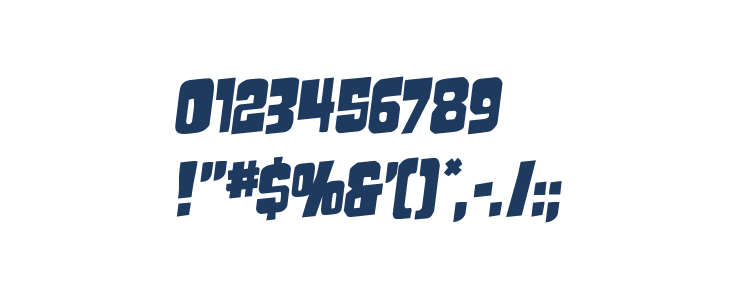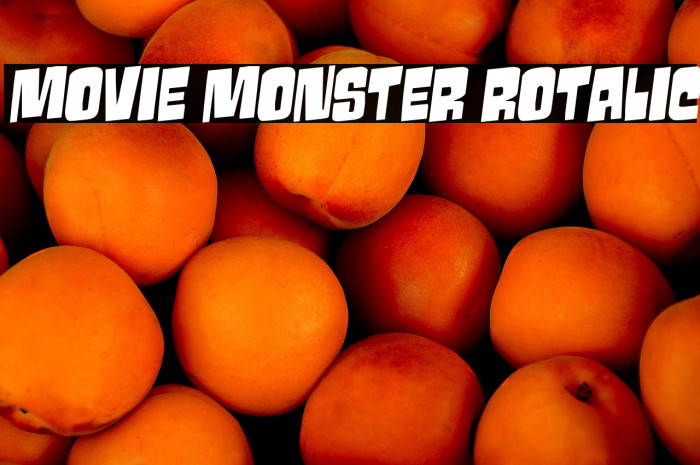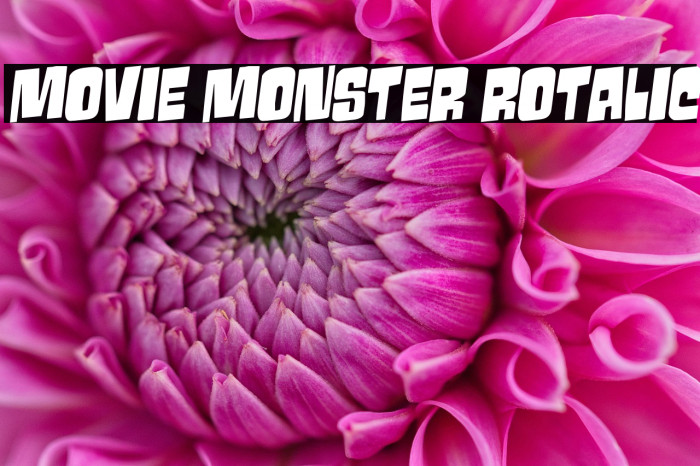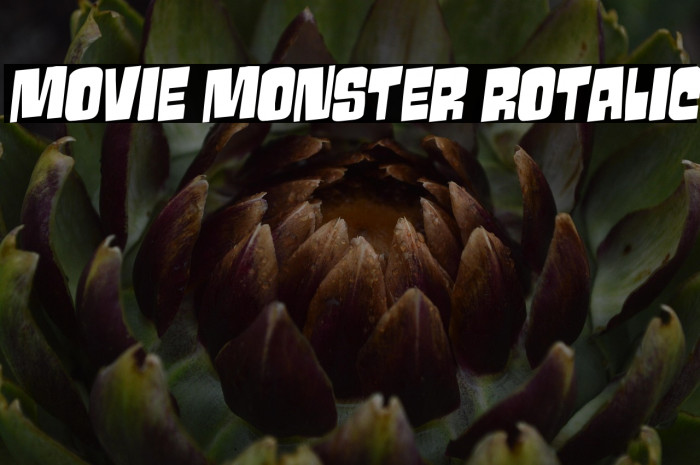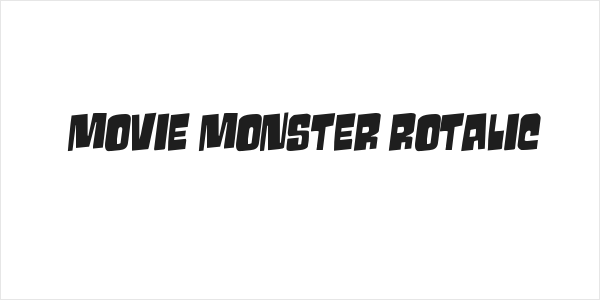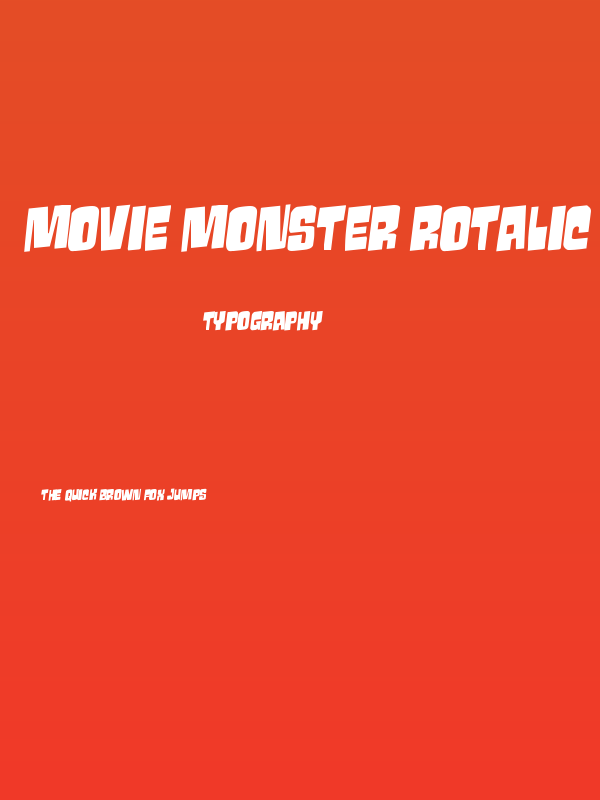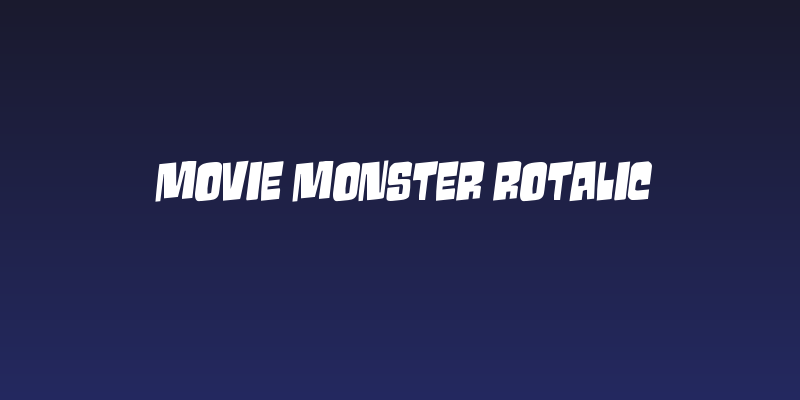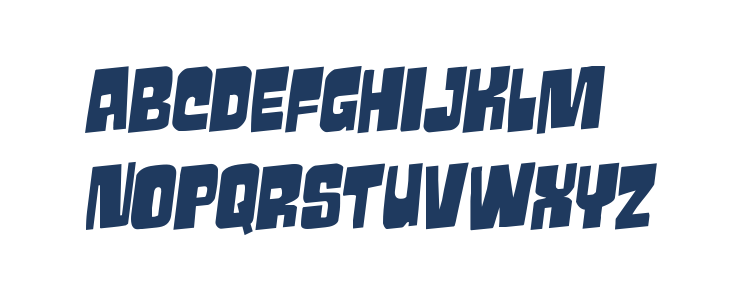
Movie Monster Rotalic Font
Movie Monster Rotalic Description
This bold and dynamic font features a striking, angular design with a strong presence. The letters are slanted, giving a sense of movement and energy, reminiscent of classic movie posters or comic book titles. The uppercase letters are particularly bold, with sharp edges and a slightly condensed form, while the lowercase letters maintain the same energetic style. Numbers and special characters are equally bold and consistent with the overall design, making this font ideal for attention-grabbing headlines or titles. The thick strokes and high contrast between the thick and thin parts of the letters add to its dramatic effect.
| Proposed Projects | Ideal for movie posters, comic book titles, video game covers, and any project requiring a bold, dramatic typeface. |